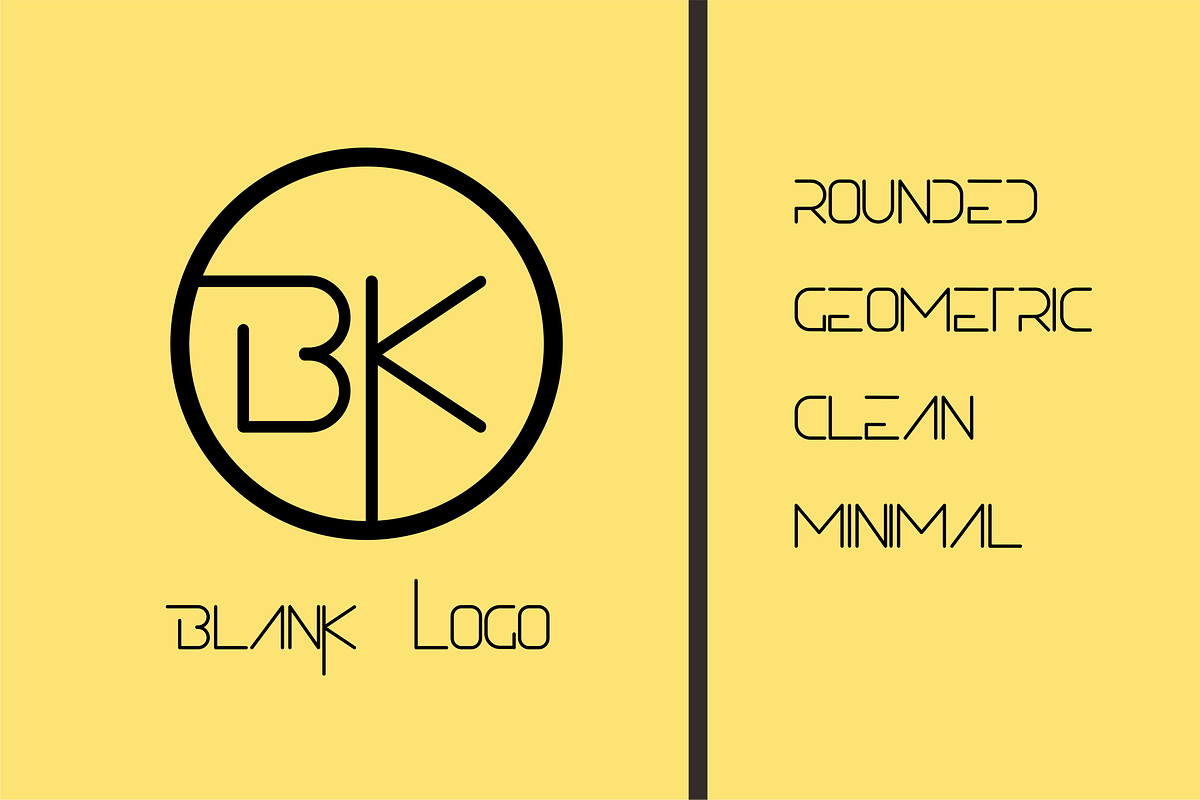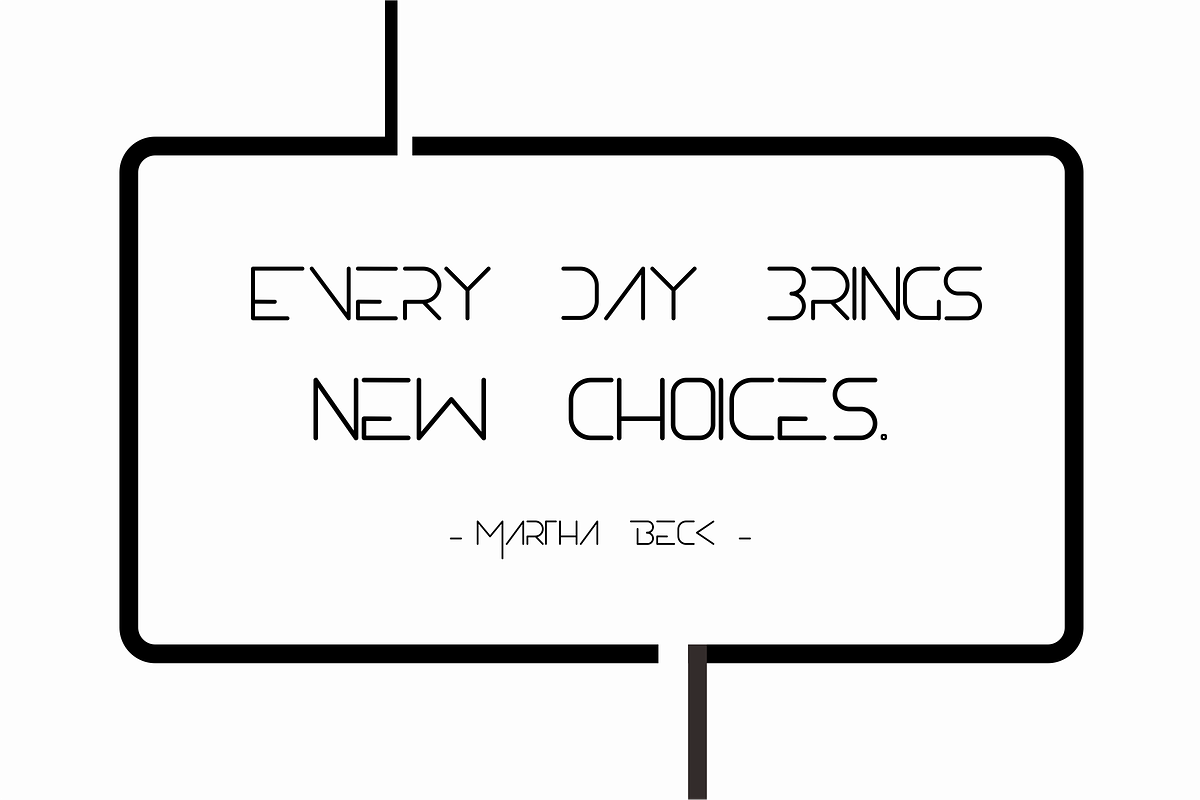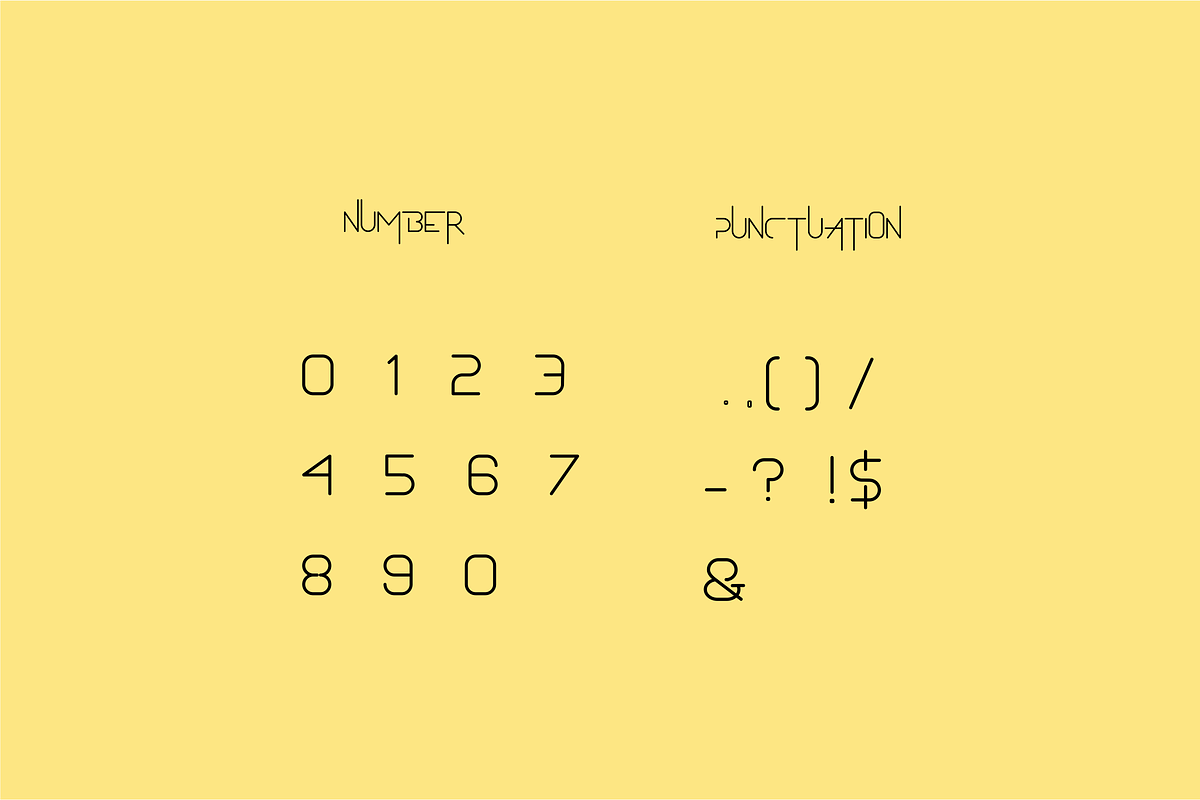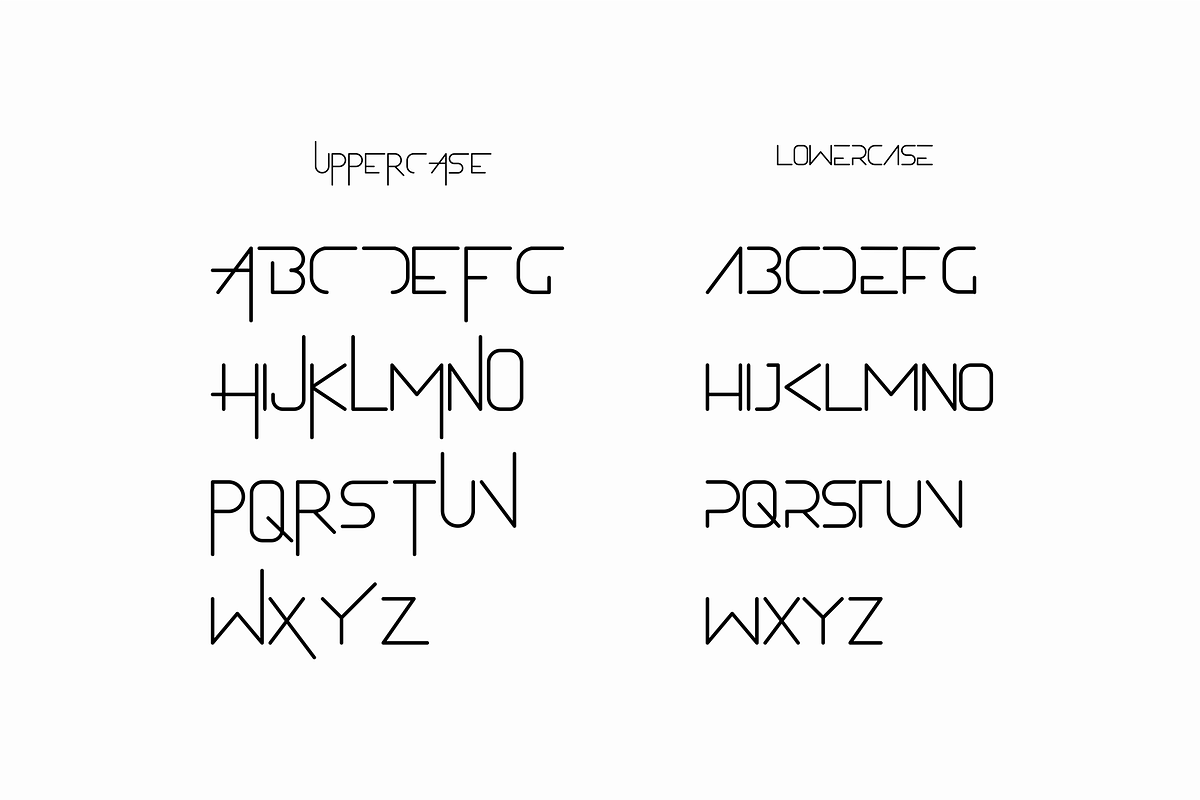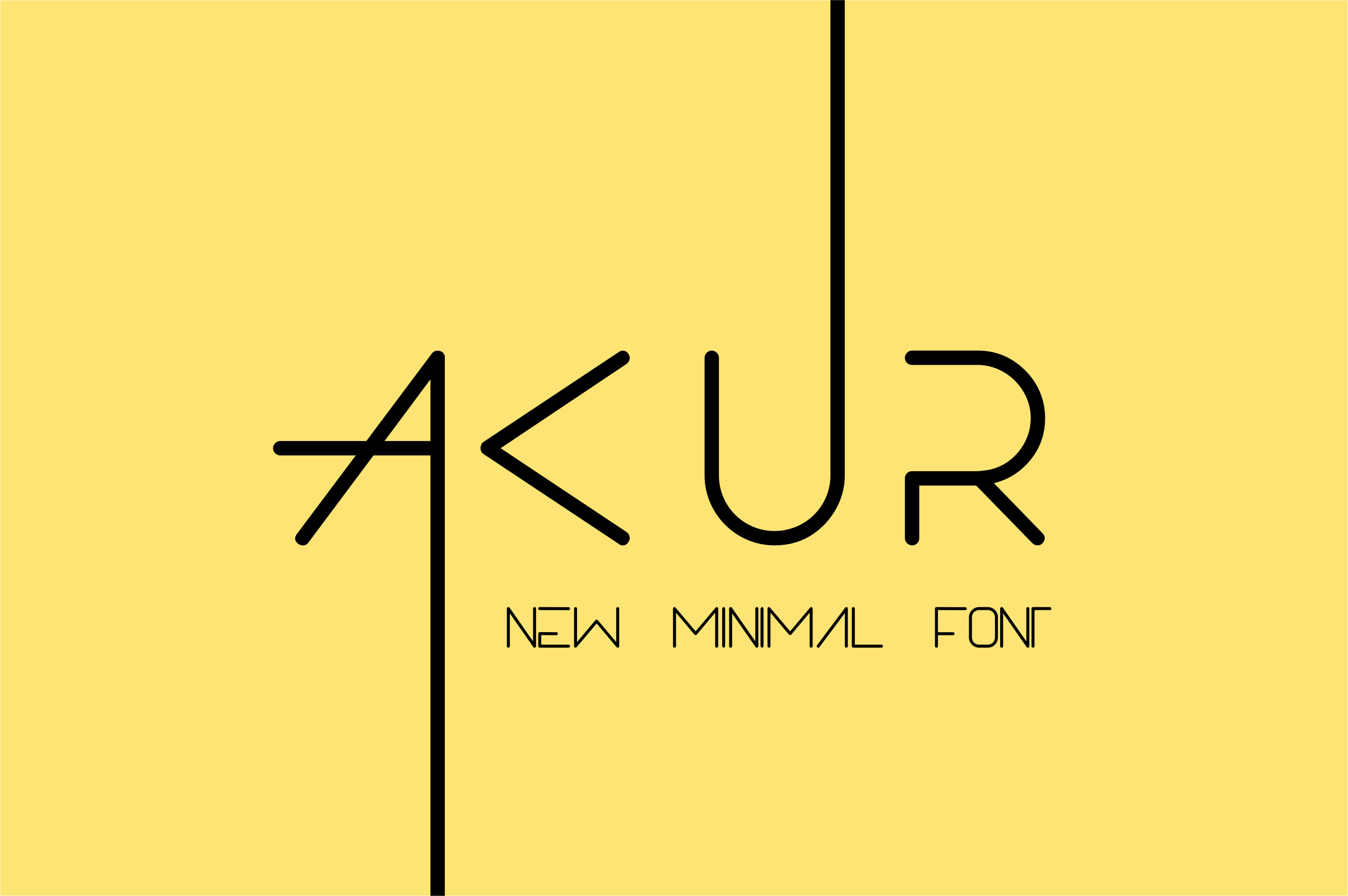
AKUR Font
AKUR is simple but significant, and defined by its crisp edges and modern touches. It is designed for optimal legibility. An all caps sans-serif, AKUR makes a statement without making a scene.